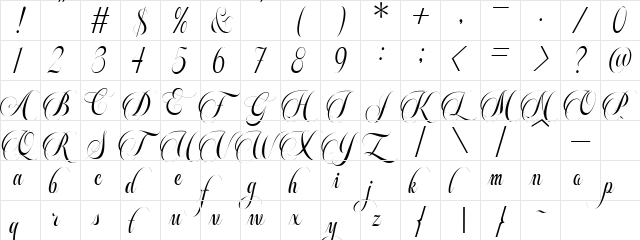
Beautiful Roses Script
| Style | Script |
| Foundry | Blankids Studio |
Design Context for Beautiful Roses Typeface
Beautiful Roses flows with the natural rhythm of handwritten lettering, making it ideal for designs that call for warmth and personal expression.
Font Pairing: Combine Beautiful Roses with a simple geometric sans for maximum contrast — the tension between flowing curves and clean structure is a classic typographic pairing.
Pro Tip: Use Beautiful Roses for short runs of text — names, titles, or taglines. Extended body copy in script faces tires the eye quickly.